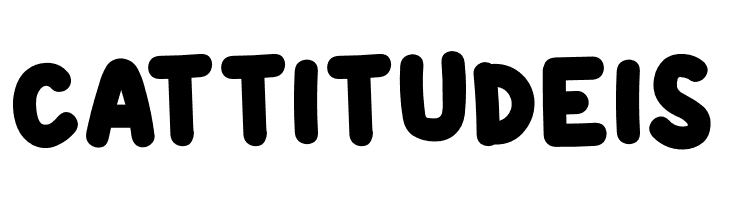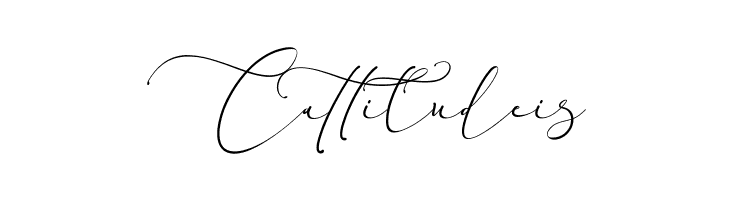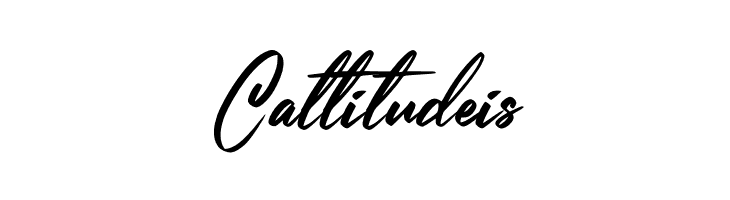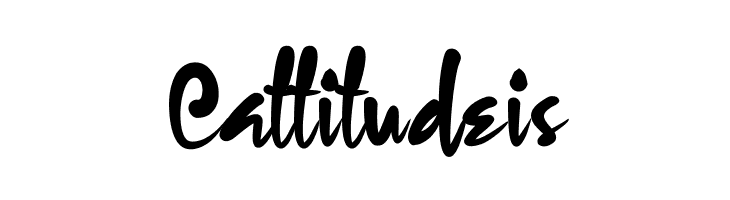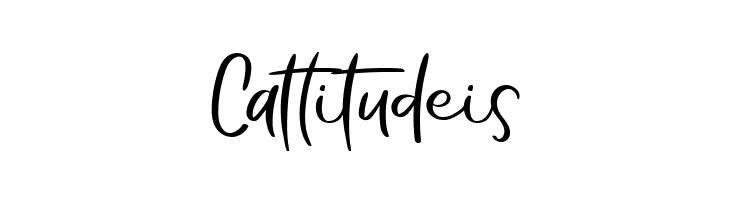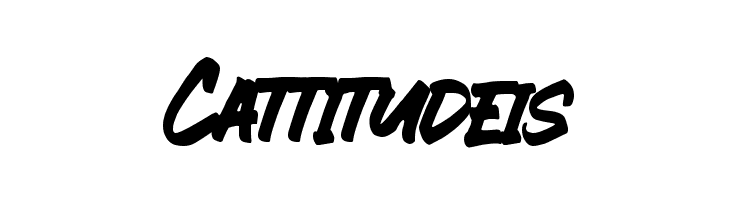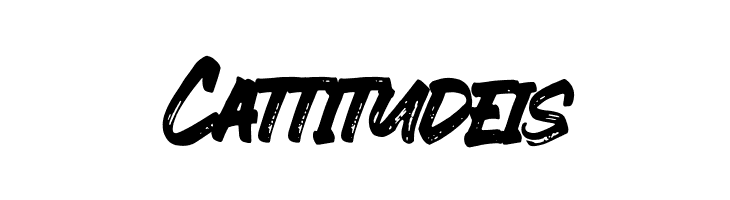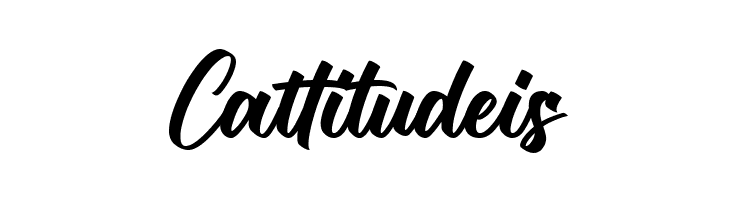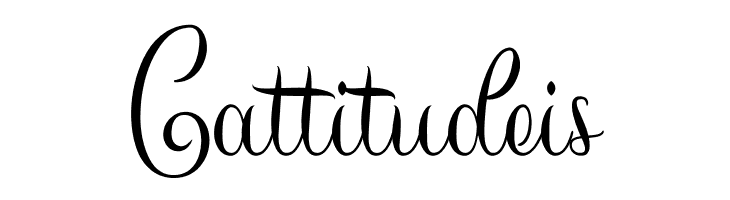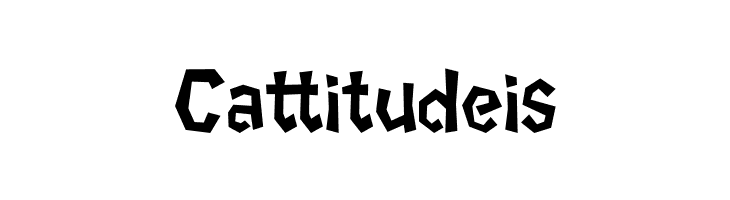
A playful, handwritten-style font with a whimsical and friendly appearance.
A dynamic and flowing script font with elegant cursive letterforms.
An elegant and flowing script font with smooth, cursive letterforms.
Elegant cursive script with a handwritten style.
A playful, cursive font with medium contrast and flowing, connected letters.
A flowing, cursive script font with elegant, sweeping curves.
A playful, casual handwritten font with smooth, rounded edges.
A bold, playful handwritten font with thick strokes and a casual style.
A decorative font with geometric shapes and intricate detailing, perfect for fantasy themes.
A playful, handwritten font with smooth, rounded edges and a casual style.
Playful handwritten script font.
A bold, angular font with a geometric and aggressive style.
A lively and flowing script font with smooth, cursive strokes.
A bold, geometric font with sharp angles and thick strokes.
Elegant handwritten script font.
A graceful and elegant script font with flowing curves and decorative swashes.
An elegant script font with flowing, high-contrast strokes and ornate flourishes.
A sophisticated script font with elegant loops and swirls.
A modern, elegant script font with flowing cursive style.
A modern, geometric font with subtle curves and a friendly aesthetic.
A bold, slanted font with high contrast and angular shapes, ideal for dynamic headlines.
A modern, elegant script font with flowing, graceful curves.
A modern, geometric font with clean lines and rounded edges.
A futuristic, italicized font with bold, geometric characters.
A sleek, modern italic font with geometric lines and a futuristic touch.
A modern, hollow, geometric font with clean lines and rounded edges.
A modern, hollow, inverse font with geometric outlines.
A modern, geometric font with a unique inverse style and consistent character height.
A bold, playful font with rounded, thick strokes and a friendly appearance.
A playful and expressive handwritten font with dynamic strokes.
A classic serif font with elegant, pronounced serifs and medium contrast.
A bold, handwritten font with dynamic, flowing strokes.
A bold, geometric font with a vintage sports style.